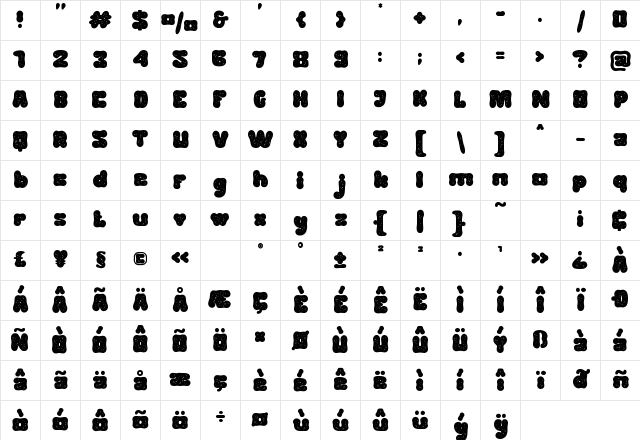
Complete The Hepcat Textured Regular glyph index. Displaying only characters natively supported by The Hepcat Textured Regular font.
The Hepcat Textured embraces imperfection - its rough, textured character adds raw authenticity to designs that want to feel lived-in and unconventional.
Pro Tip: Use The Hepcat Textured at larger sizes where the texture and irregularity of each letterform can be clearly seen - it loses its character at small sizes.